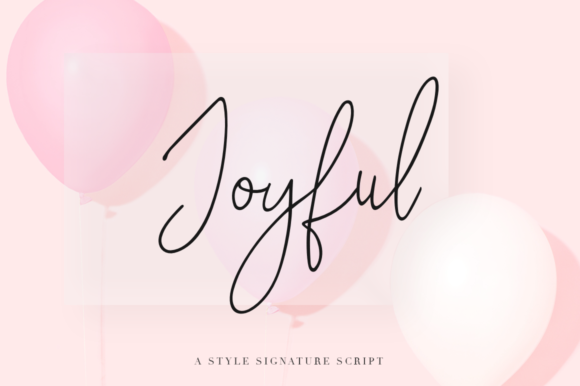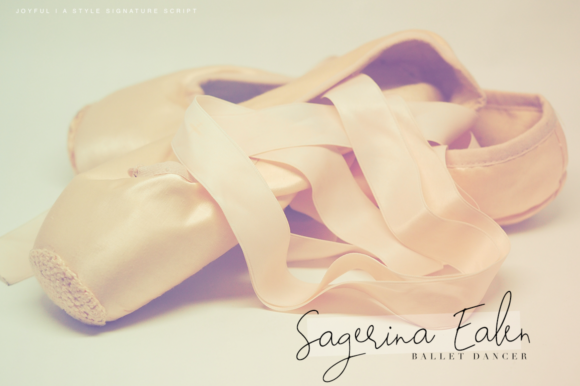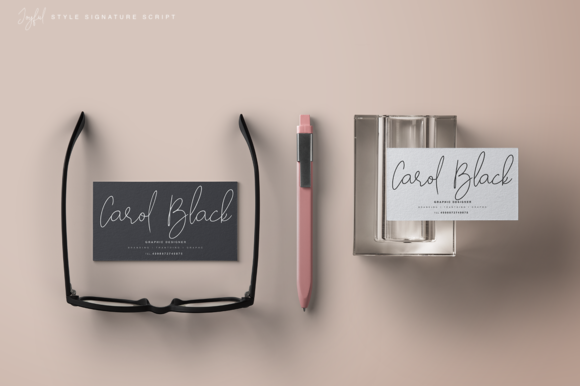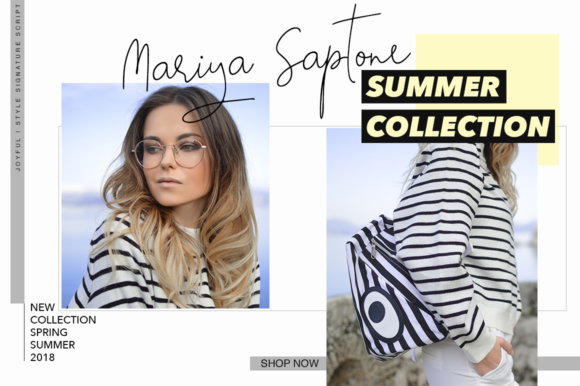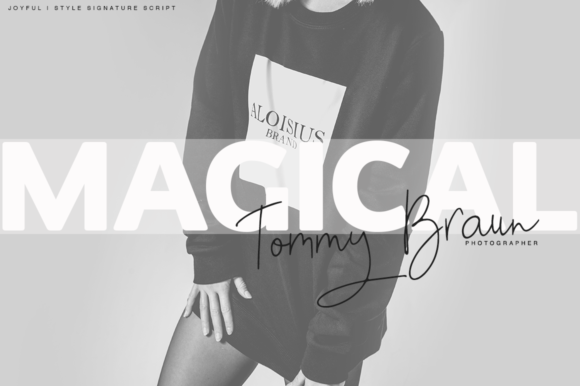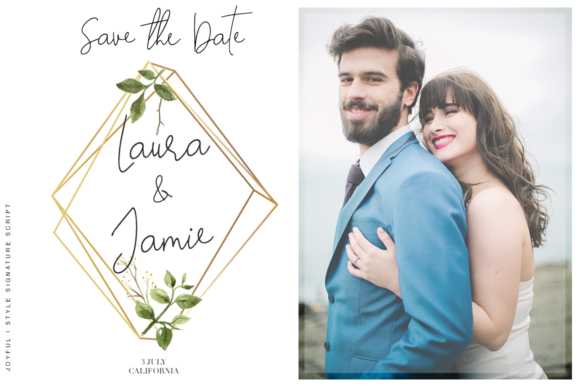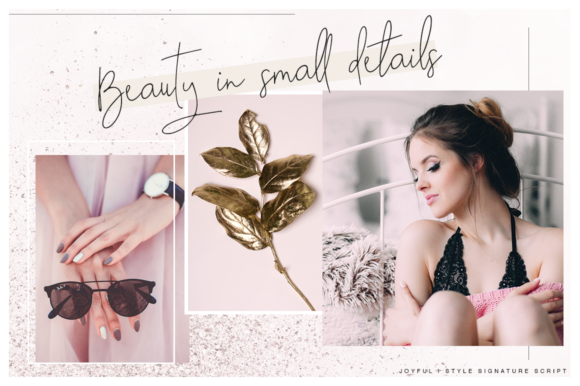
Joyful Font
About Joyful Font
Joyful is a beautiful and joyous signature font, ideal for use in a wide range of projects that need a clean and refreshing look. This font has an airy appeal, and looks best in editorial and fashion projects.